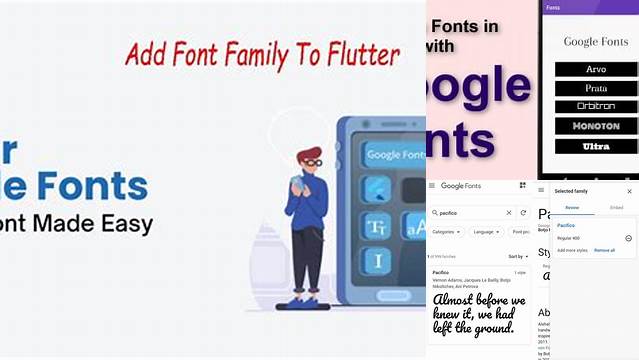
Import Google Fonts Flutter: Easy Guide
Flutter makes it super easy to add beautiful typography to your apps, and a big part of that is using Google Fonts. Seriously, guys, having access to this massive library of fonts can totally transform the look and feel of your application. Whether you're aiming for a modern, minimalist vibe or something more classic and elegant, Google Fonts has got your back. This guide is all about showing you how to seamlessly integrate these awesome fonts into your Flutter projects. We’ll dive deep into the process, covering everything from the initial setup to advanced customization. So, buckle up, and let's get your Flutter apps looking fantastic with some stellar typography!
Understanding Google Fonts for Flutter
So, what exactly are Google Fonts, and why should you care about them in your Flutter journey? Well, Google Fonts is this incredible, free, open-source library that houses a vast collection of high-quality, diverse fonts. They're designed to be used across the web, and luckily for us Flutter developers, they work just as beautifully within our mobile and desktop applications. The beauty of using Google Fonts in Flutter lies in their accessibility and the sheer variety they offer. You can find everything from sleek sans-serifs perfect for UI elements to more expressive serifs that add personality to headlines. This massive collection ensures that you’re never limited by your font choices. Instead of being stuck with the system's default fonts, which can often look a bit bland, you can easily elevate your app’s design by incorporating unique and visually appealing typefaces. This not only makes your app look more professional but also helps in conveying the right tone and brand identity. Think about it: the font you choose is one of the first things a user notices, and it significantly impacts their perception of your app's quality and style. Google Fonts gives you the power to make that first impression a great one. Plus, they’re optimized for various screen resolutions, meaning they’ll look sharp and clear whether your users are on a small phone screen or a larger tablet. It's all about making your app not just functional, but also a joy to look at and interact with, and typography plays a starring role in that experience.
How to Apply Google Fonts to Text Widgets
Once you've added the google_fonts package, applying these gorgeous fonts to your Text widgets is a piece of cake. Instead of the usual TextStyle(fontFamily: 'YourFontName'), you’ll use the google_fonts methods. For example, to use 'Roboto' and make it bold, you'd write GoogleFonts.roboto(fontWeight: FontWeight.bold). It's that intuitive! You can chain various styling options like fontSize, color, and fontStyle just like you would with a regular TextStyle. This flexibility means you can customize every aspect of your text's appearance to perfectly match your app's design. The google_fonts package offers a declarative way to style your text, making your code cleaner and more readable. You simply call the font name followed by any styling modifications you need. For instance, if you want to use 'Lato' in a light weight with a specific size and color, you’d write GoogleFonts.lato(fontSize: 16, fontWeight: FontWeight.w300, color: Colors.blueGrey). This approach abstracts away the complexity of font loading and management, letting you focus purely on the visual presentation. It's super handy for quickly prototyping different looks or applying a consistent brand font throughout your application. You can even use it for textAlign, letterSpacing, and wordSpacing properties, ensuring complete control over your text rendering. Seriously, guys, it’s the easiest way to make your Flutter apps pop with personality and professional polish. Forget messing around with asset folders; this package handles it all efficiently and elegantly.
Customizing Font Weights and Styles
Google Fonts aren't just about the basic font face; they come with a whole spectrum of weights and styles. The google_fonts package makes it effortless to access these variations. Need a thin font for subtitles? Use GoogleFonts.openSans(fontWeight: FontWeight.w300). Want a chunky bold for headings? Just go for GoogleFonts.montserrat(fontWeight: FontWeight.bold). The fontWeight property accepts various values, from FontWeight.w100 (Thin) all the way up to FontWeight.w900 (Black), allowing for incredibly fine-grained control over your text's thickness. This is super important for creating hierarchy and visual interest in your UI. Different weights can signify different levels of importance, guiding the user's eye through the content. For example, using a heavier weight for titles and a lighter weight for body text creates a clear visual distinction. Beyond weights, you can also manipulate fontStyle. Want to add a touch of elegance with italics? No problem! GoogleFonts.playfairDisplay(fontStyle: FontStyle.italic). This level of customization ensures that your typography isn't just functional, but also aesthetically pleasing and perfectly aligned with your brand's identity. It's like having a whole typographic toolkit at your fingertips, ready to be deployed with just a few lines of code. You can experiment with different combinations to achieve the exact look and feel you desire, making your app stand out from the crowd. Mastering these subtle variations can make a huge difference in the overall user experience, making the content more digestible and the interface more engaging. So, don't shy away from exploring the full range of weights and styles available; they are there to be used!
Handling Font Loading and Performance
Now, while the google_fonts package is amazing, it's always good practice to think about performance, especially when dealing with external resources like fonts. The package is pretty smart about this, typically pre-caching fonts or allowing you to define which fonts your app will use. For most standard applications, the default behavior is usually sufficient and won't cause any noticeable performance issues. However, if you're building a massive app or want to be extra sure, you can explicitly pre-fetch certain fonts during your app's initialization. You can do this using google_fonts.GoogleFonts.config.ensureInitialized(). This tells the package to load the necessary font assets upfront, ensuring they are available immediately when needed and preventing any potential jank or delays during runtime. This is particularly useful for fonts you know you'll be using extensively throughout your app. It's like telling your app,